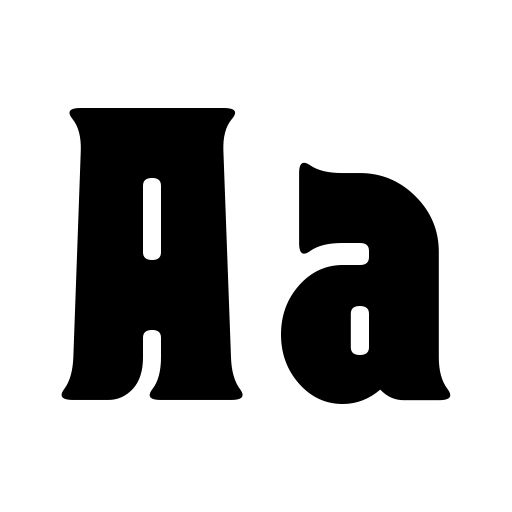
Capo is a bold, decorative slab serif font with strong vintage Western vibes, featuring thick, bracketed serifs and a playful yet sturdy character design. Its high contrast and intricate detailing make it ideal for eye-catching headlines, logos, and posters that seek to convey a rustic or retro personality. This font excels in branding and display use where a distinctive, nostalgic style is desired.
Capo Font
About Capo Font